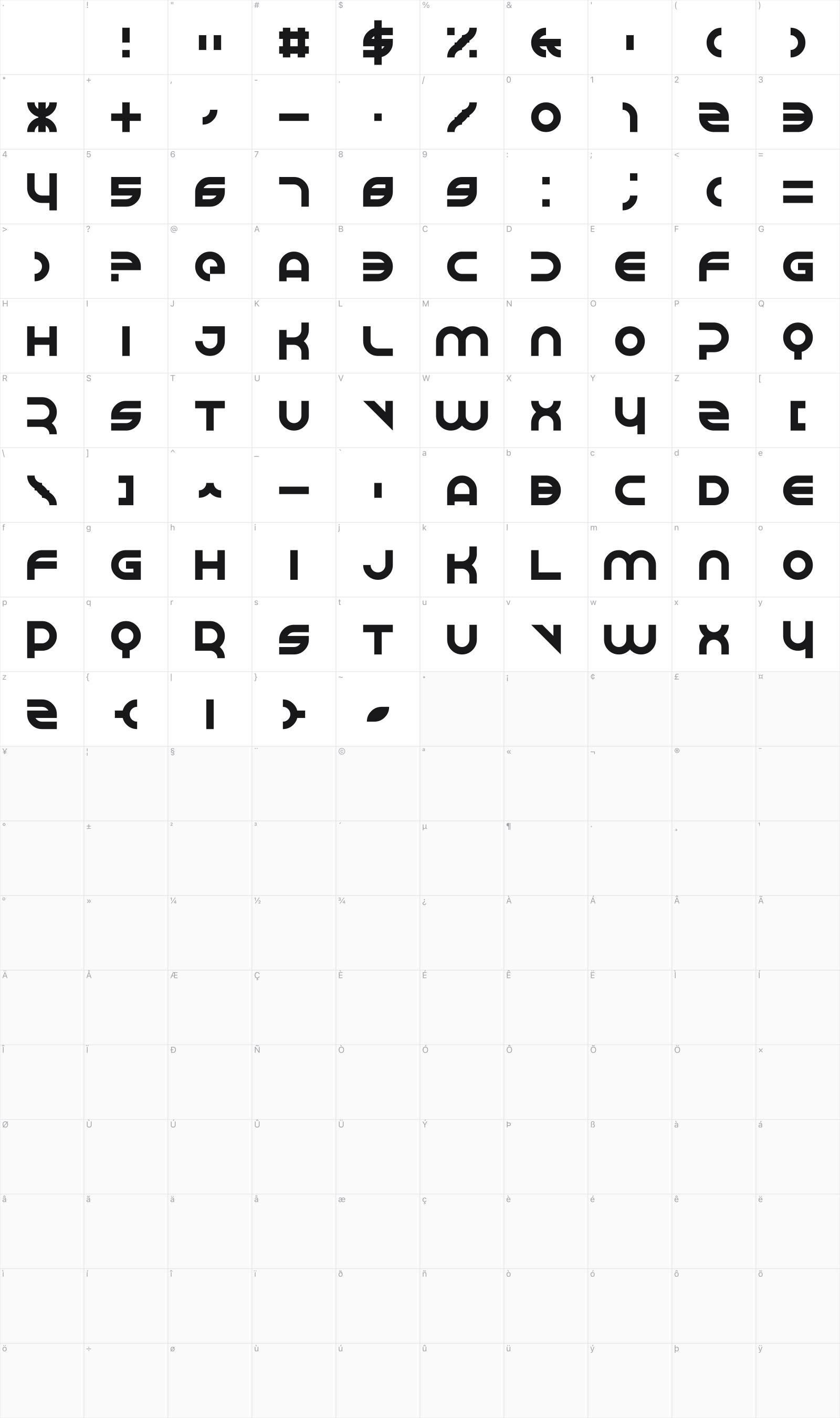
Perspire
Perspire is a heavy geometric sans with wide proportions and sharp angular cuts sliced into rounded letter bodies. The tension between the soft outer curves and hard interior notches gives it a distinctly futuristic, almost mechanical personality. Strong at large sizes in gaming, sports, or tech branding contexts.